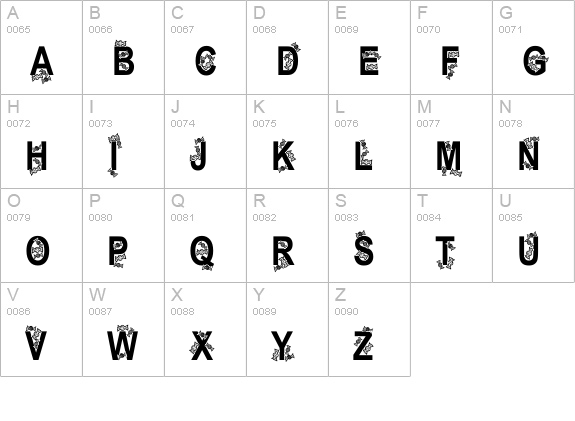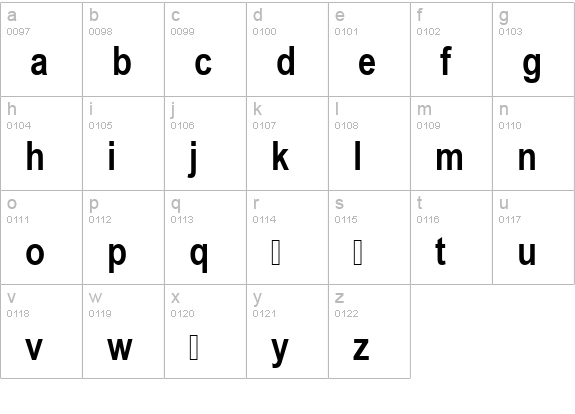
Lolly Font Details
Lolly font is a delightful and whimsical typeface that exudes a playful charm. Perfect for adding a touch of fun and creativity to your designs, this font features rounded edges and a bouncy feel that is sure to catch the eye. Whether you're working on a children's book, a party invitation, or a branding project for a lively brand, Lolly font is a great choice to bring a sense of joy and energy to your work. Best of all, Lolly font is available for free download at FontsMarket.com. This means you can easily access this charming font and start using it in your projects without any cost. So why wait? Add a sweet touch to your designs with Lolly font today!